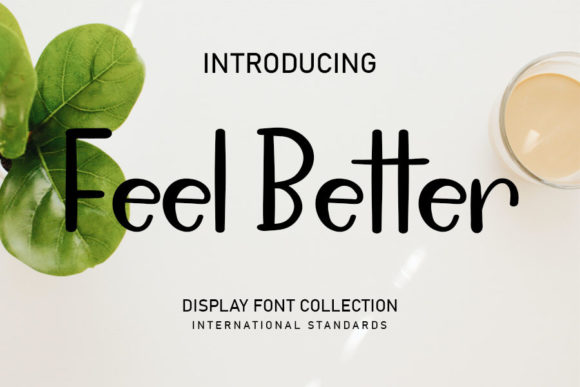
Behold, the Feel Better Font - a script family of fonts adorned with a captivating handwritten charm that exudes warmth and authenticity. Its graceful lines and playful curves invoke a sense of approachability and relatability, making it an ideal choice for designers seeking to infuse their creations with a touch of personality and charm.
Unleash your creativity with Feel Better, a font family that seamlessly adapts to a myriad of design projects. With its natural and unique style, the Feel Better font family offers endless possibilities, limited only by the boundaries of your imagination.
Designers of magazines, rejoice! Feel Better Font is your secret weapon to create captivating layouts that resonate with readers. Its effortless charm adds a personal touch to headlines, articles, and quotes, drawing readers in and enhancing their engagement with your content.
Let Feel Better Font elevate your social media presence to new heights. Its eye-catching aesthetics and captivating charm will transform your posts, stories, and graphics into visually stunning masterpieces that demand attention and amplify your brand's message.
Feel Better Font is not merely a font; it's an expression of your individuality and creativity. Its versatility lends itself to an array of projects, empowering you to create designs that reflect your unique style and vision.
Join the ranks of design enthusiasts who have embraced the allure of Feel Better Font. Experience the joy of crafting designs that captivate and inspire, leaving a lasting impression on your audience.